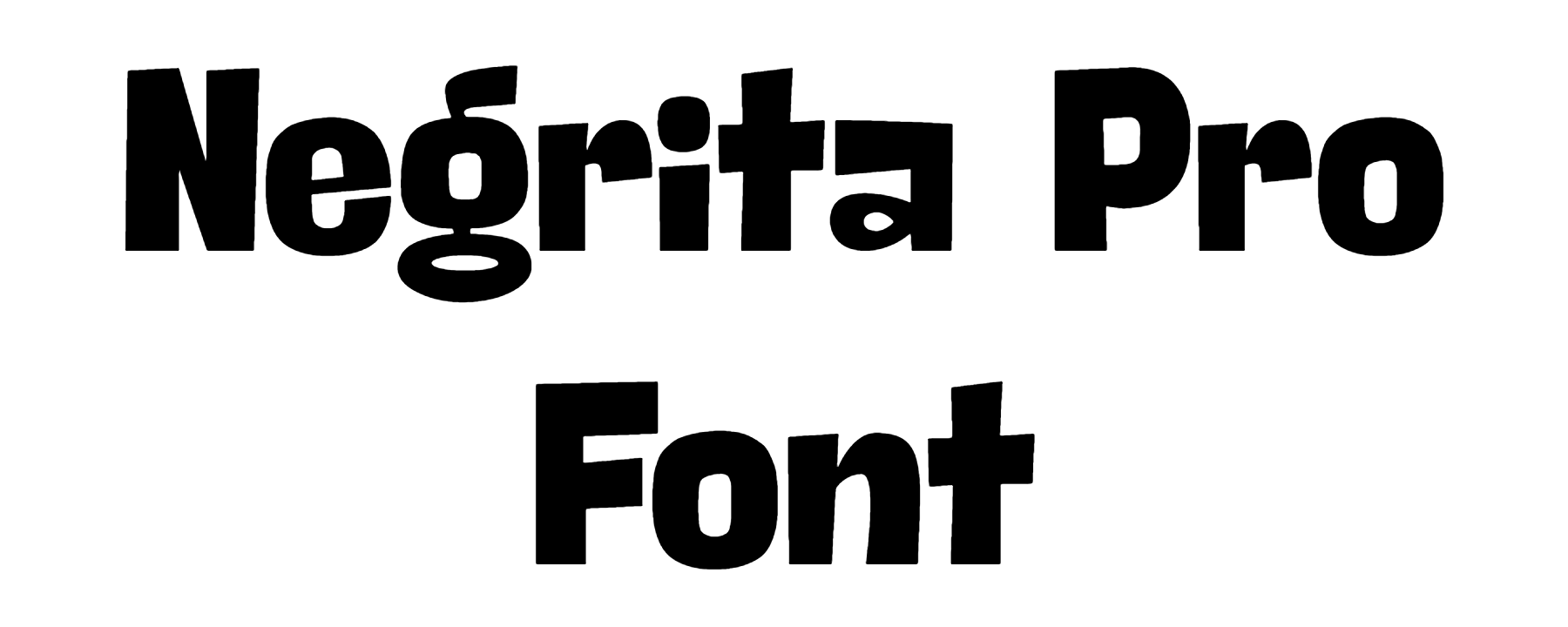
Negrita Pro Font
Negrita Pro
Negrita Pro is a fancy font made by Rodrigo araya Salas. It's a decorative display font with plenty of personality, made to grab attention. The free download includes three styles, and you can try every one of them with your own text in the preview above.
Negrita Pro Font Details
- Designer: Rodrigo araya Salas
- Font styles: 3 (Negrita Pro, Negrita Pro Dingbat and Negrita Pro Oblique)
- Glyphs: 472 in the Negrita Pro style
What You Can Type With Negrita Pro
Negrita Pro covers the full alphabet in upper and lowercase, plus all ten numbers, so you can set names, dates and prices without switching fonts. Everyday marks like &, !, ? and @ are there too. Thanks to its accented letters, it also works for Spanish, French, German, Portuguese and Italian, not just English. On top of that, it includes Cyrillic characters.
Where Negrita Pro Works Best
Designers usually reach for fonts like Negrita Pro when they're making posters, logos and eye-catching headlines. Use it for one standout word or headline and let simpler fonts handle the rest. Because the family has more than one style, you can mix them in a single design for headings, subheadings and highlights.
Does Negrita Pro support accented letters?
Yes. Negrita Pro includes the accented letters needed for Spanish, French, German, Portuguese and Italian, so it works for more than just English.